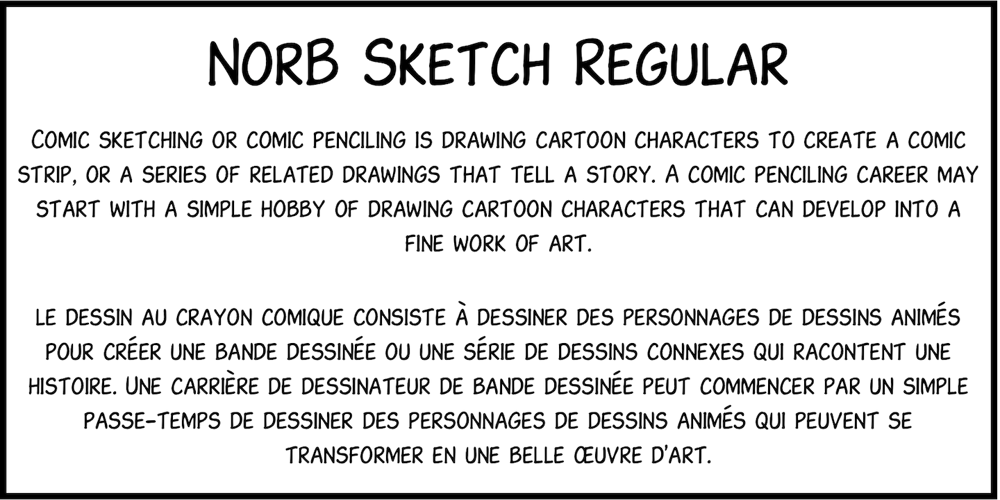
NorB Sketch Font Family was designed by Nor Eddine Bahha and published by NorFonts. NorB Sketch contains 6 styles and family package options. NorB Sketch is inspired from my NorB Felt Pen font, so trying a new technique of lettering. It is a handwritten text font witch can be used with any word processing program for text and display use, print and web projects, apps and ePub, comic books, graphic identities, branding, editorial, advertising, scrapbooking, cards and invitations and any casual lettering purpose… or even just for fun!It comes with 6 weights, Normal, Bold and Heavy each with their Italics.